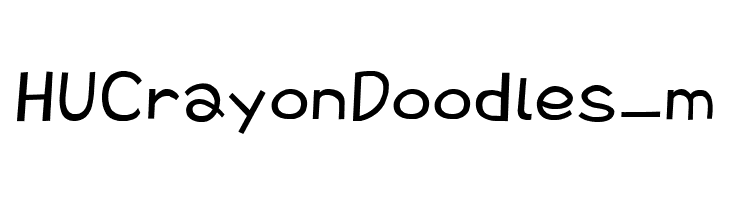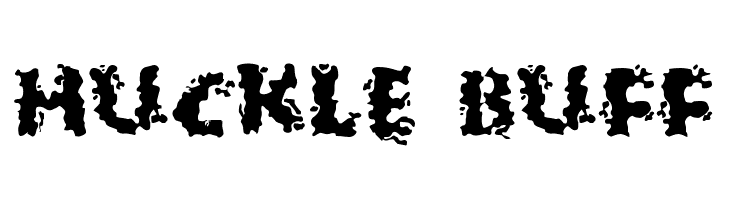
A playful, hand-drawn font with a whimsical and informal style.
A bold, geometric font with sharp angles and a futuristic style.
A bold, textured font with a rugged, distressed appearance.
A graceful, handwritten script font with elegant, flowing lines.
A whimsical, hand-drawn font with curly, looping strokes and a playful style.
A whimsical, sketch-like handwritten font with dynamic strokes.
A modern, ultra-thin, and elongated font with a minimalist design.